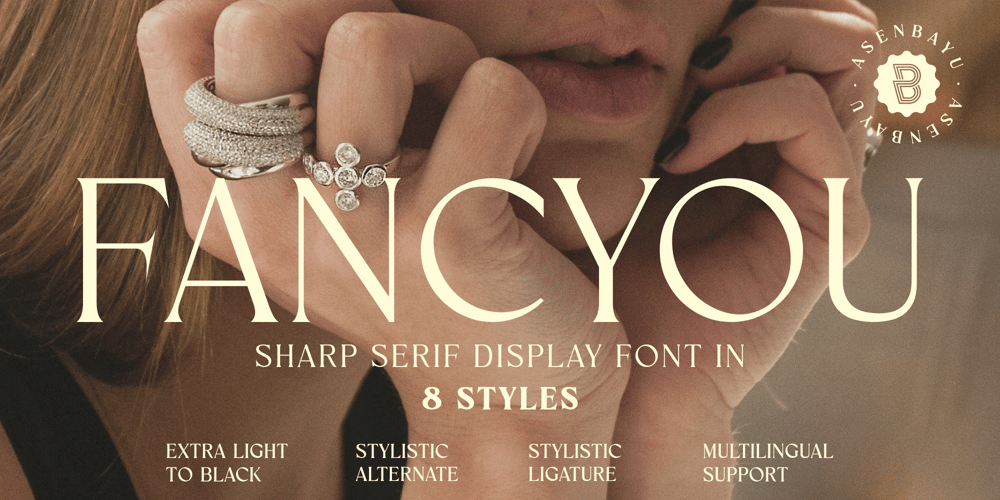
Fancyou Font Family was designed by Bayu Noor Witarsa and published by Asenbayu. Fancyou contains 8 styles and family package options. Fancyou is a classy vintage-inspired serif typeface with modern proportions consisting of 8 styles. Fancyou fonts are characterized by sharp serifs that bring a fashionable feel. You can use these fonts in modern vintage designs. These fonts are perfect for many projects such as logos, branding identity, magazines, business cards, posters, websites and many more.Fancyou fonts feature: Kerning, Ligature Style, Alternative Style, Numeral, Symbol and Multiple Languages Supported